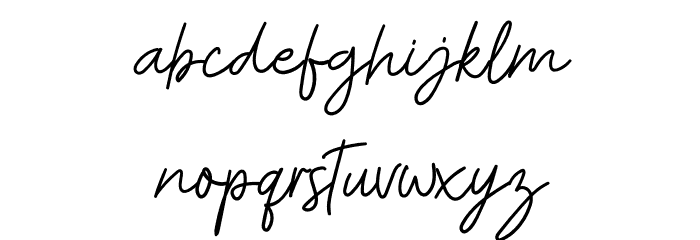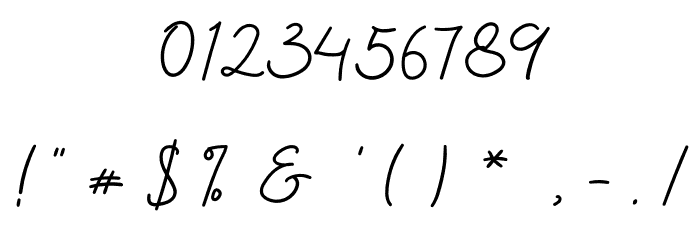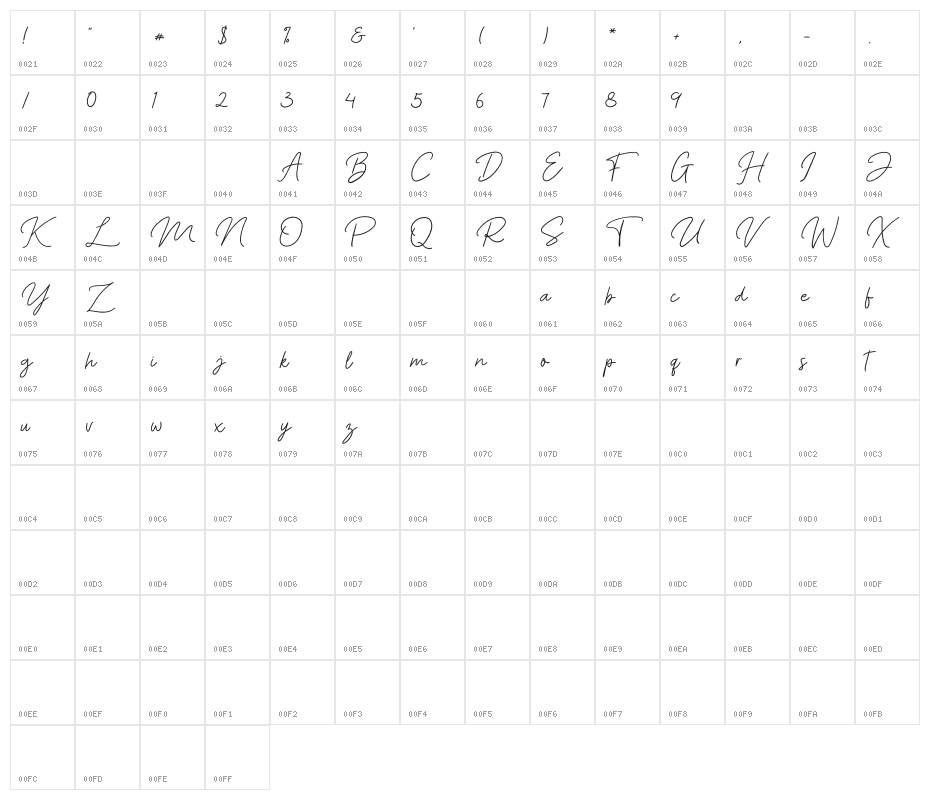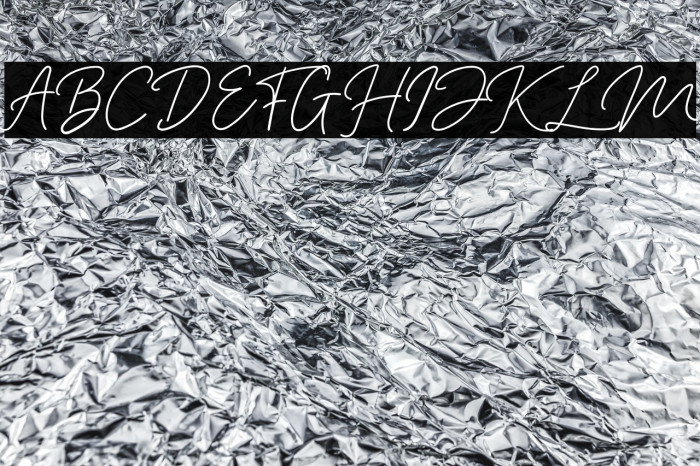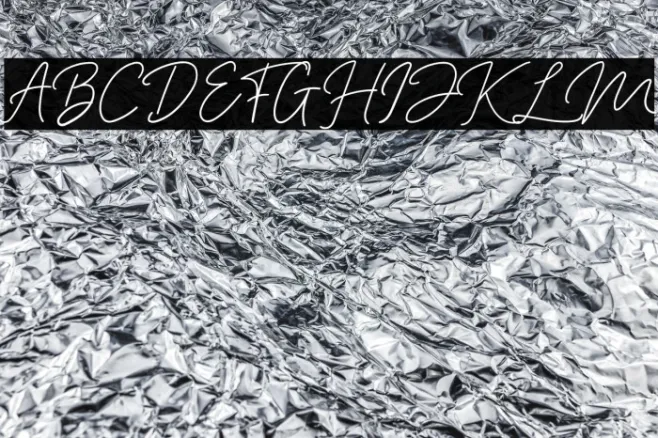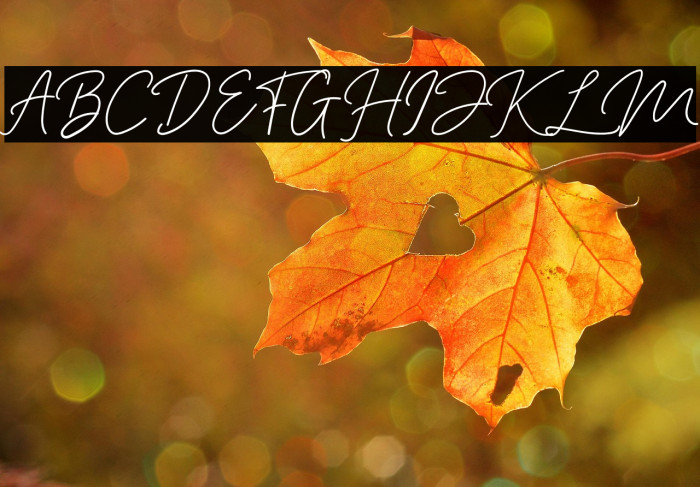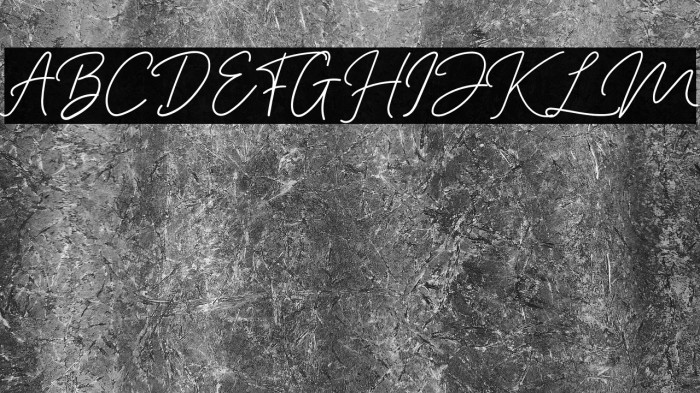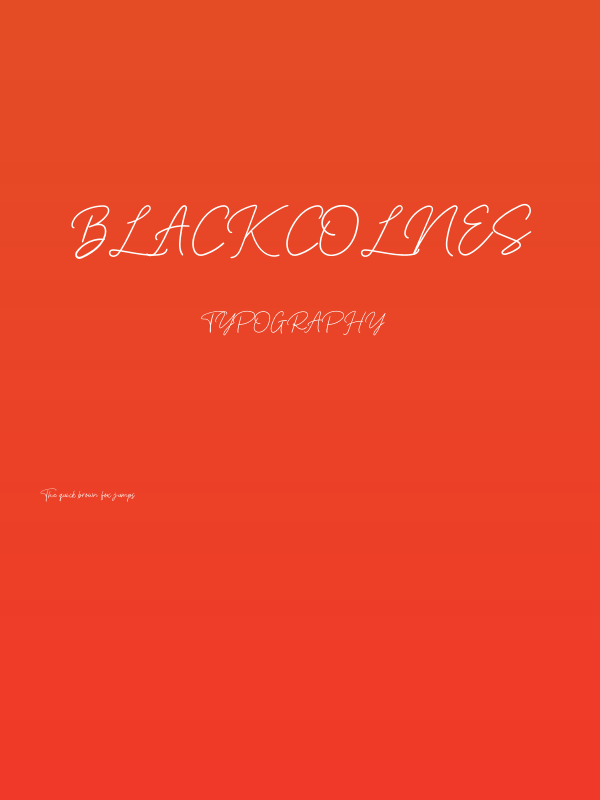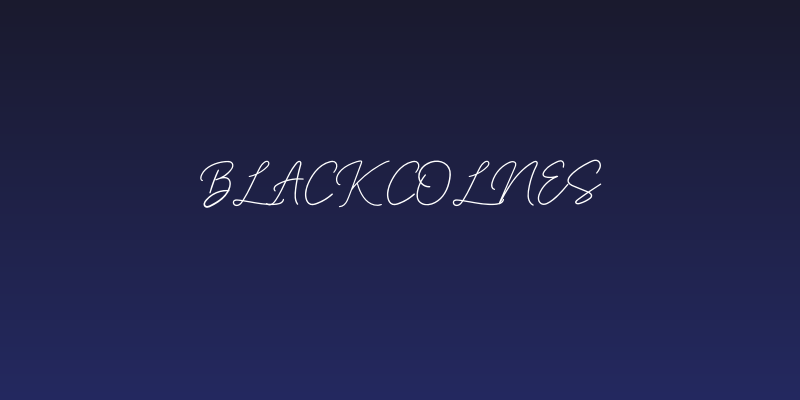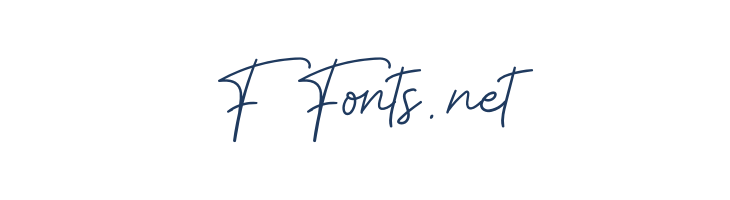
Black Colnes Font
This font features an elegant and flowing script style, characterized by its smooth, cursive letters that mimic natural handwriting. The uppercase letters are slightly more elaborate, with graceful loops and curves, while the lowercase letters maintain a consistent and fluid form. The numerals are clear and easily readable, maintaining the same flowing style as the letters. Special characters are designed to match the overall aesthetic, ensuring a cohesive look. This font exudes a sense of sophistication and charm, making it ideal for projects that require a personal touch.
A graceful and elegant script font with a natural, handwritten style.
- Font: Black Colnes
- Proposed Projects: Ideal for wedding invitations, greeting cards, personal branding, and elegant logos.
- Category: Script
- Overall Style: Elegant, Handwritten
- Use Case: Logos, Invitations, Personal branding